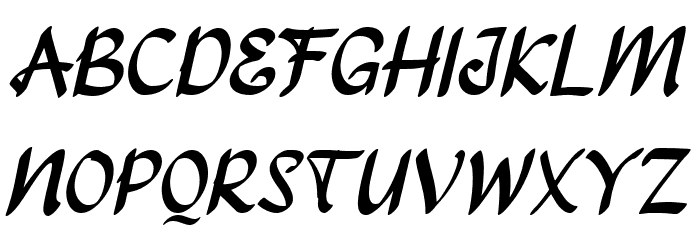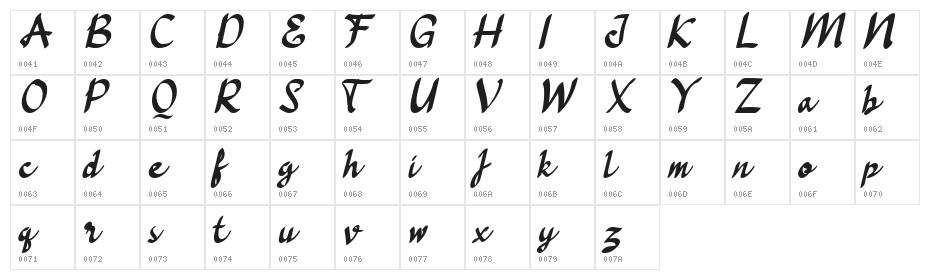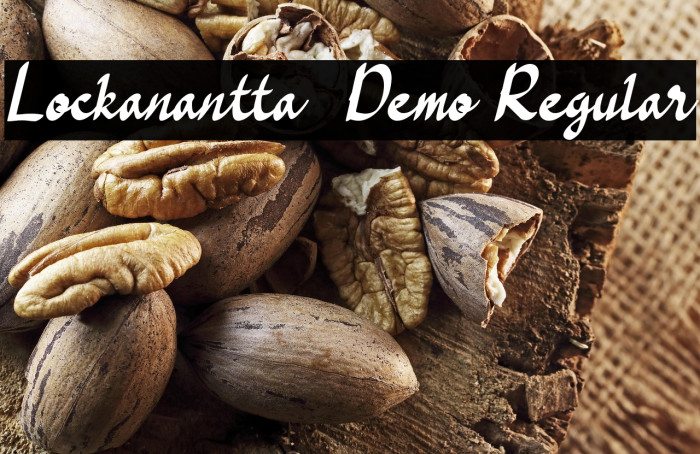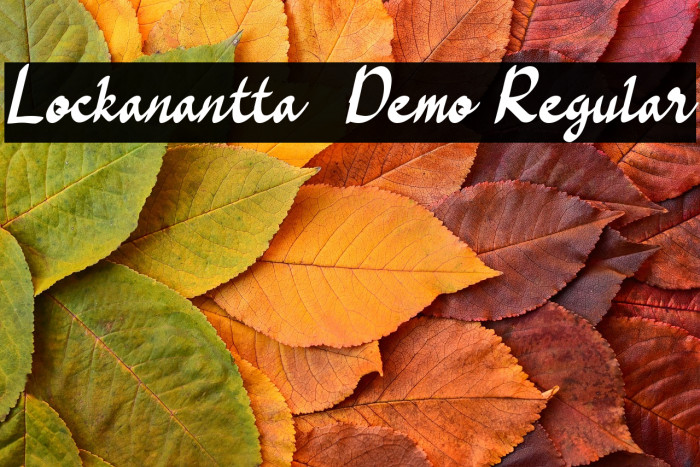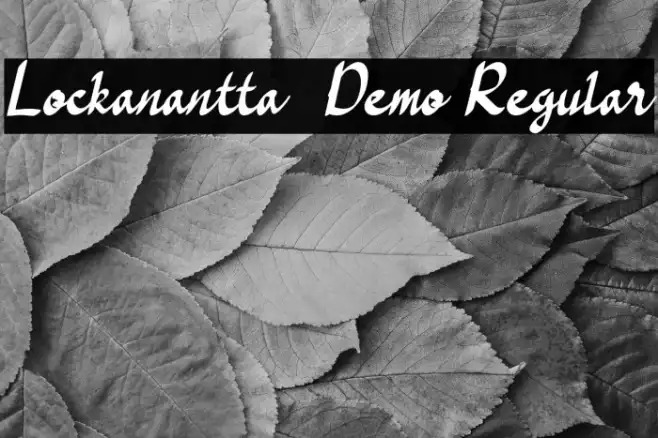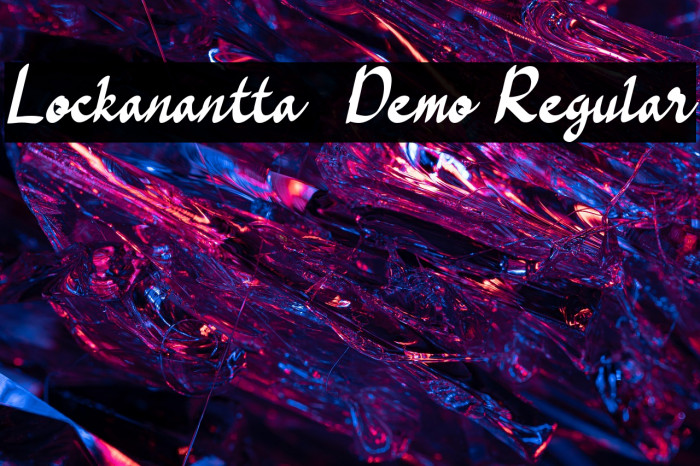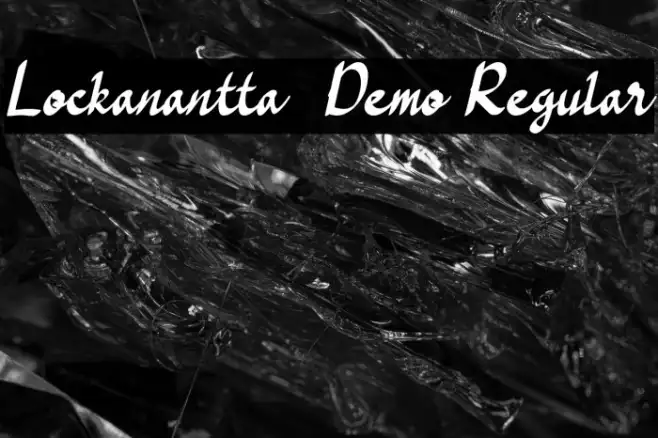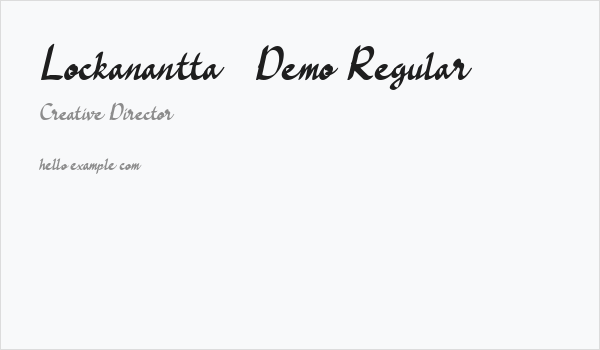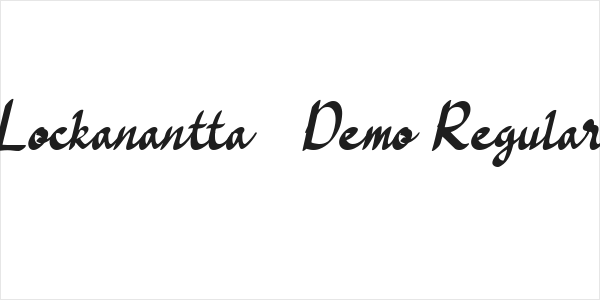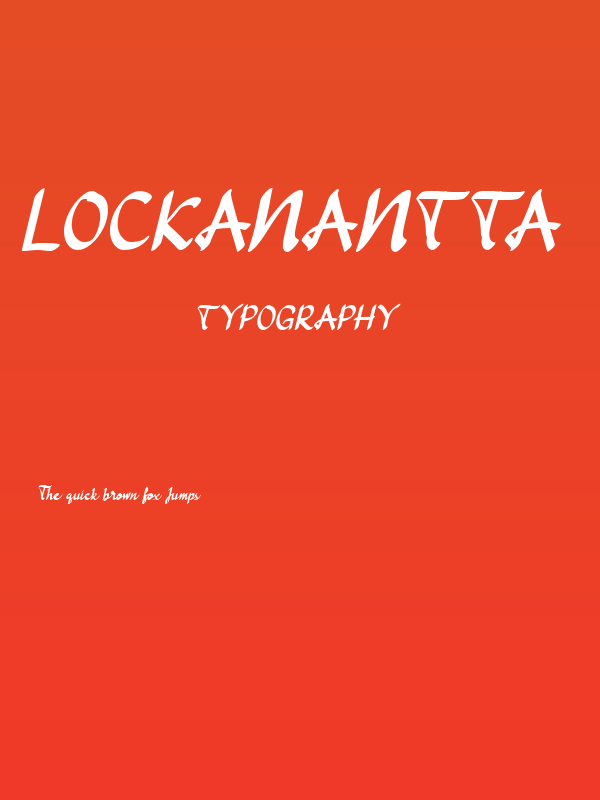
Lockanantta - Demo Regular Font
Lockanantta - Demo Regular Description
This font features a dynamic and flowing script style, characterized by its elegant curves and fluid strokes. The uppercase letters are bold and slightly slanted, giving a sense of movement and grace. The lowercase letters maintain a consistent style with smooth connections between characters, enhancing readability while preserving the artistic flair. The font's overall appearance is both sophisticated and approachable, making it suitable for a variety of design contexts. Its unique style is perfect for projects that require a touch of elegance and creativity.
Overall StyleElegant, Artistic
Use CaseLogos, Invitations, Decorative text
Proposed ProjectsIdeal for wedding invitations, greeting cards, branding, and logo design.